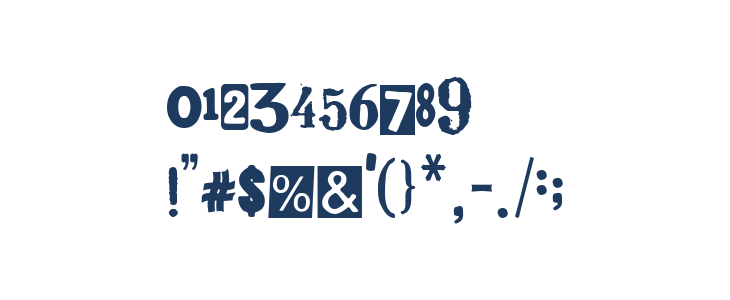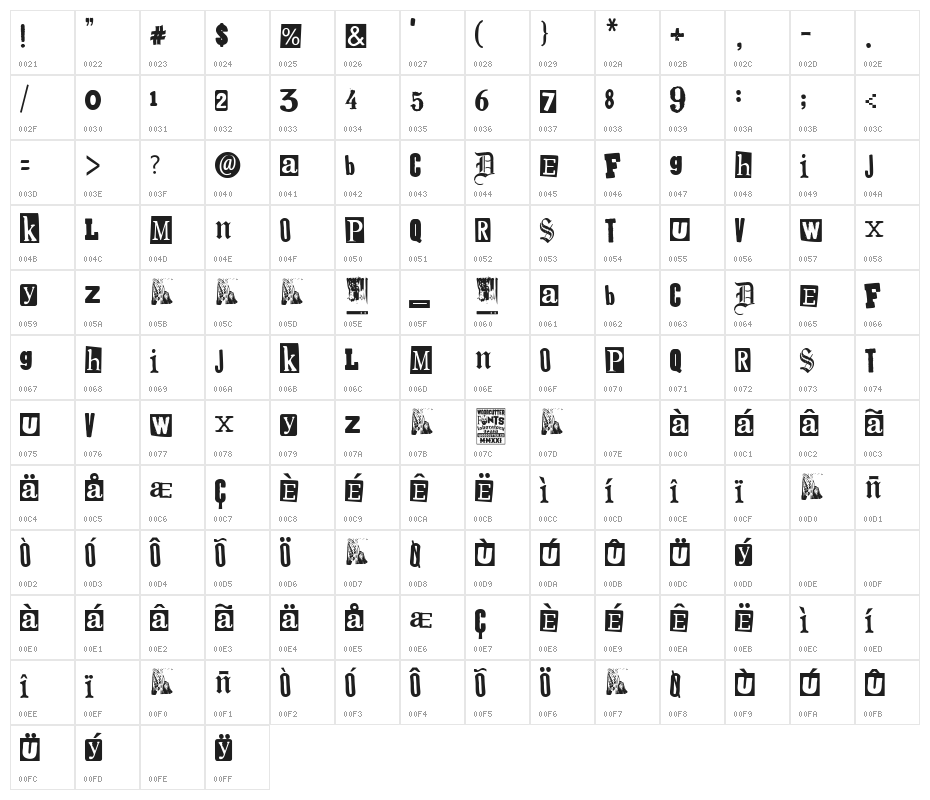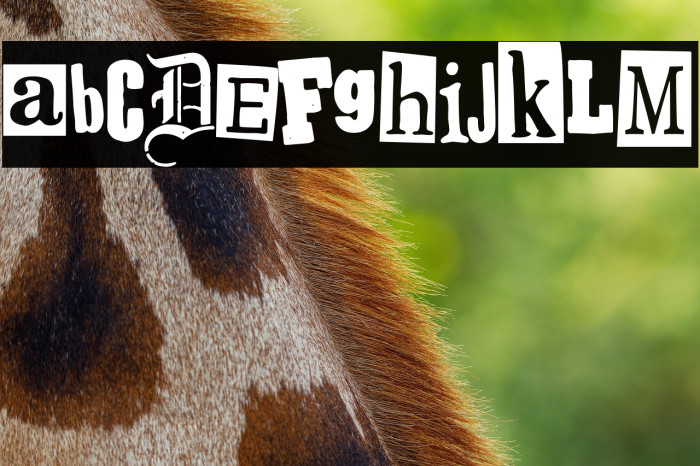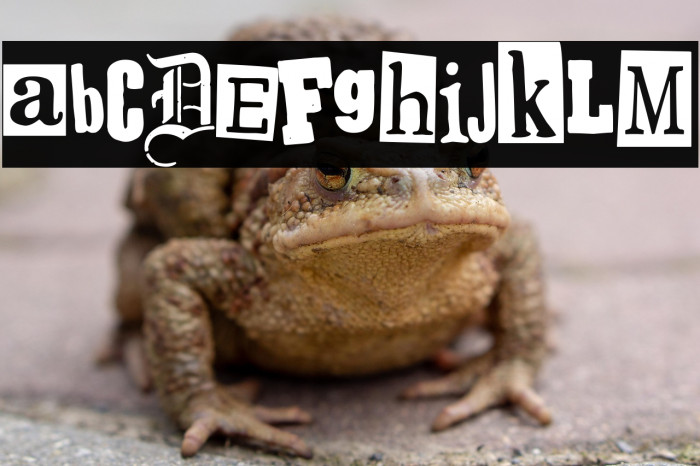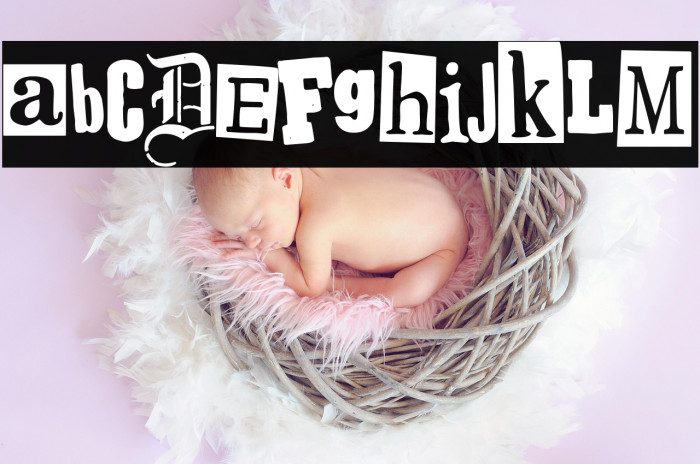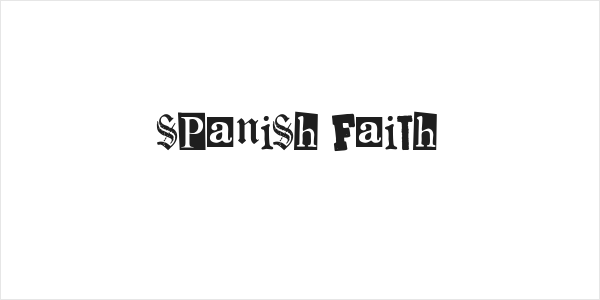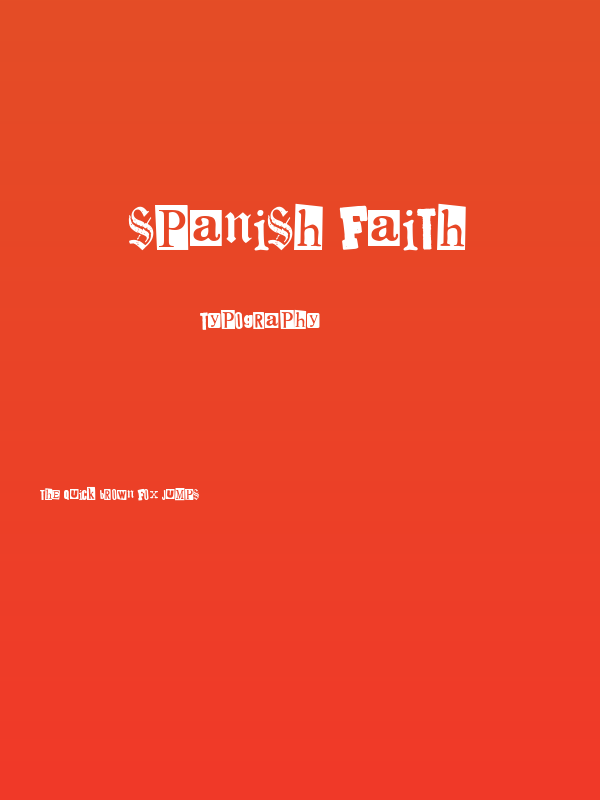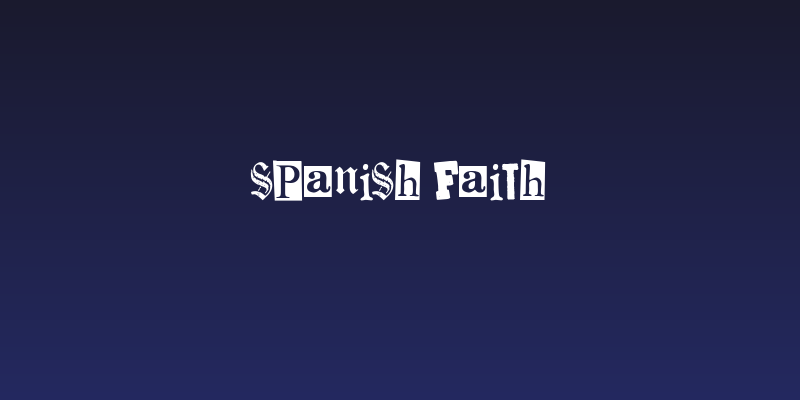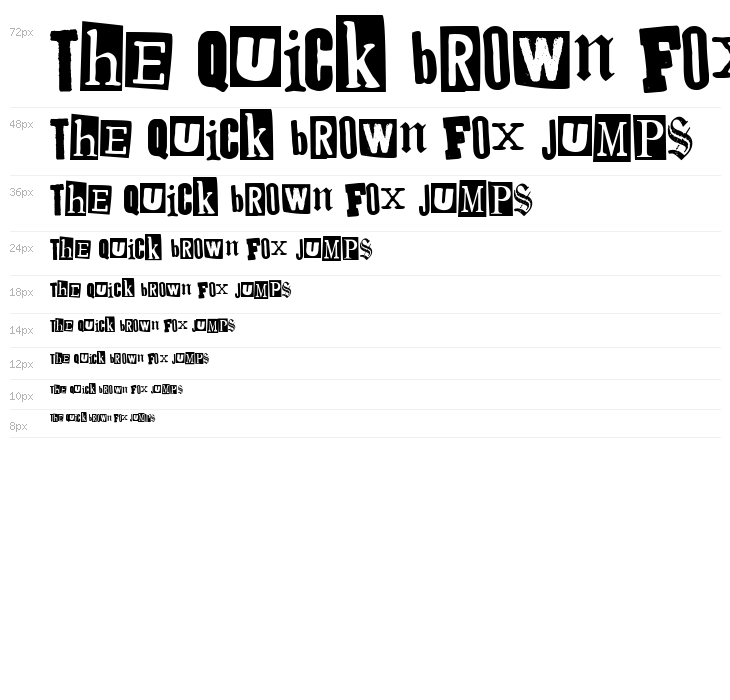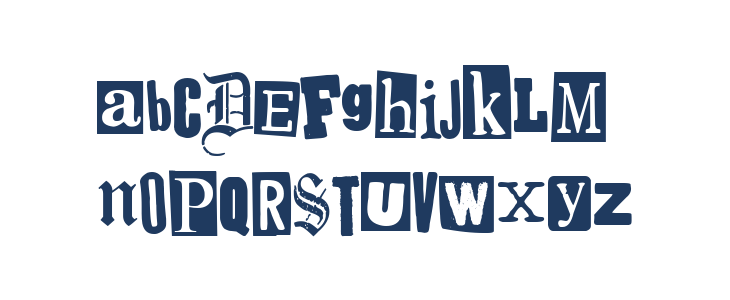
Spanish Faith Font
Spanish Faith Description
This font is a bold and eclectic mix of styles, combining elements of Gothic, stencil, and block lettering. Each character is distinct, with uppercase and lowercase letters featuring a variety of decorative elements such as serifs, swashes, and unique fills. The numbers and special characters continue this theme, offering a playful yet edgy aesthetic. The overall appearance is reminiscent of a ransom note, with each letter appearing as if cut from different sources, creating a dynamic and eye-catching effect.
| Proposed Projects | Ideal for creative projects like posters, album covers, or any design requiring a bold, unconventional look. |